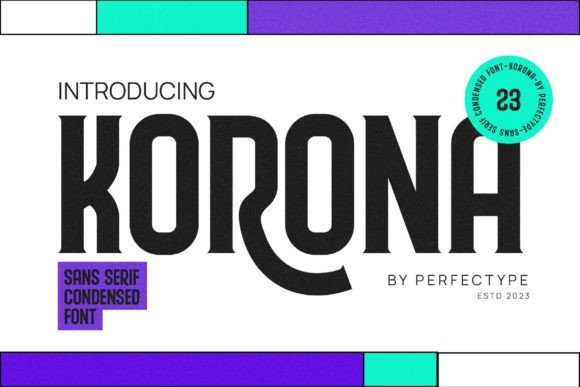
In a world where digital communication reigns supreme, your designs hold the power to capture attention, convey emotions, and leave a lasting impact. Amidst the sea of ordinary fonts, Korona font emerges as a beacon of modernity and sophistication, ready to elevate your creative endeavors to new heights.
Korona font, a sleek and condensed sans-serif masterpiece from the renowned foundry Perfectype, embodies the essence of contemporary design. Its clean lines and space-saving form lend an air of elegance and professionalism to your creations, whether you're crafting logos, headlines, or web content.
With its remarkable versatility, Korona font seamlessly adapts to a wide array of design projects. Its condensed nature makes it ideal for headlines and titles, commanding attention with its bold presence. Yet, its clean lines and legible form ensure readability even in smaller sizes, making it perfect for body text and web content.
The secret behind Korona font's allure lies in its masterful balance of aesthetics and functionality. Its refined curves and sharp angles create a visually striking contrast, evoking a sense of dynamism and energy. The font's condensed design maximizes space utilization, allowing you to convey more information without sacrificing impact.
Whether you're designing wedding invitations, branding materials, or digital content, Korona font is your trusted companion, transforming your designs into captivating masterpieces. Its versatility extends to social media graphics, posters, and brochures, adding a touch of elegance to every project you undertake.
With Korona font at your disposal, you unlock a world of endless creative possibilities. Its modern aesthetic and functional design empower you to craft designs that resonate with your audience, leaving an unforgettable impression.